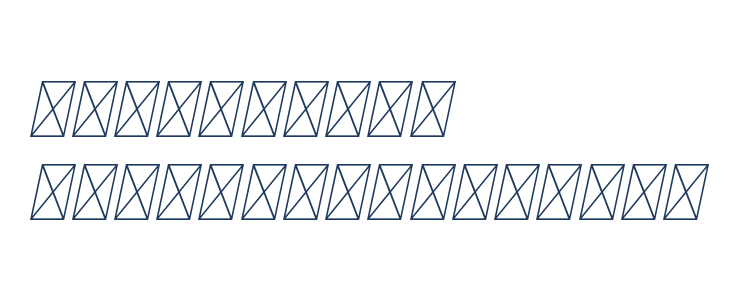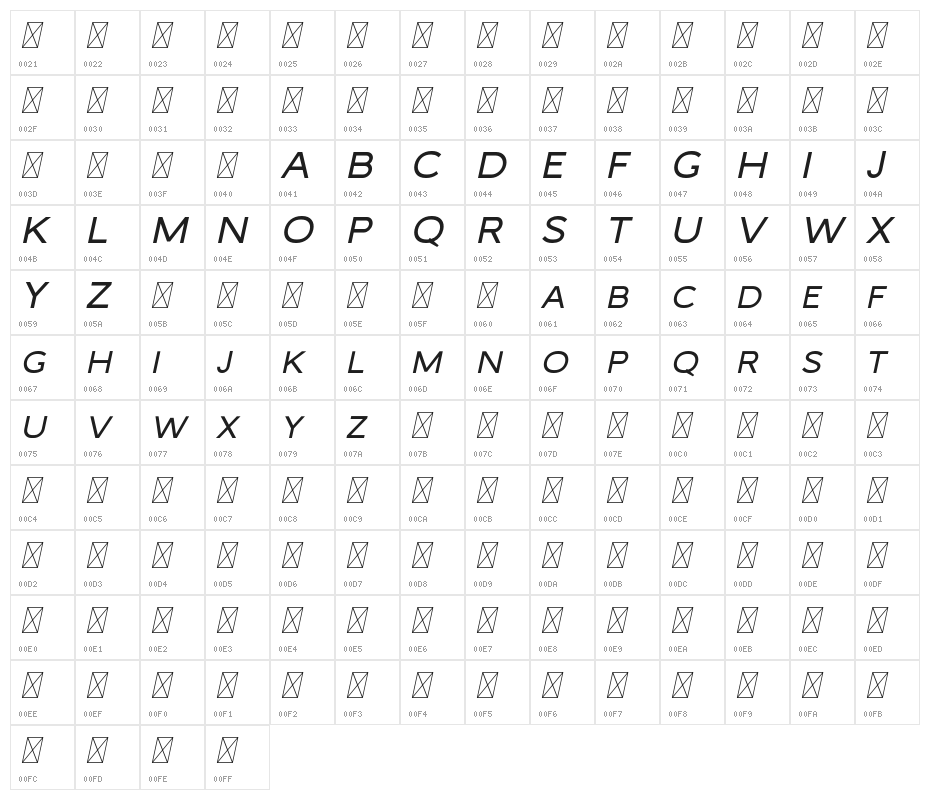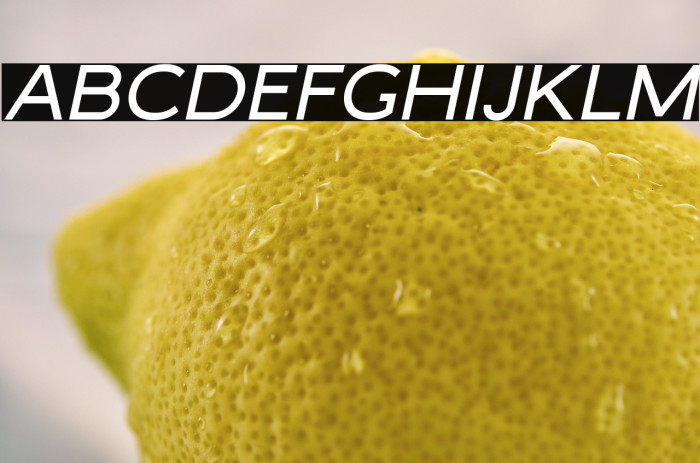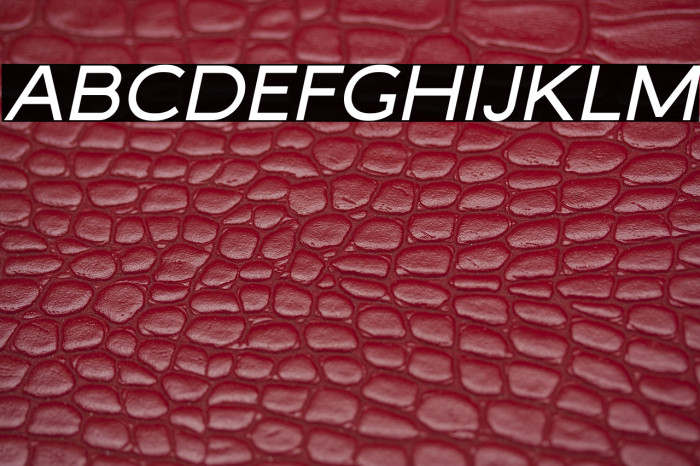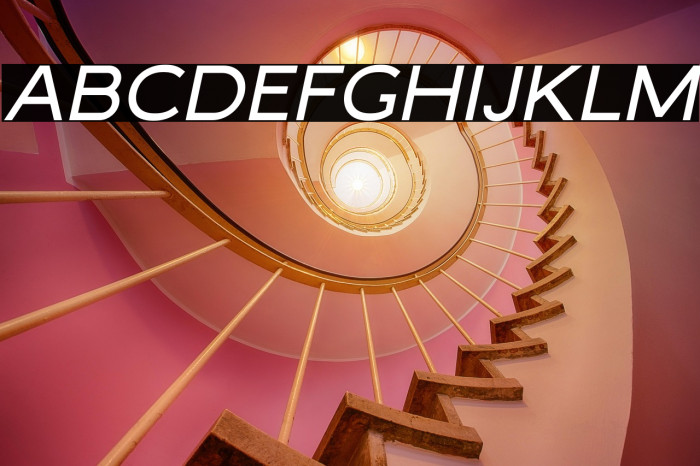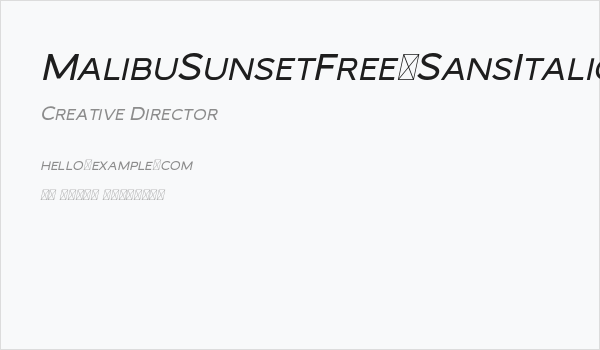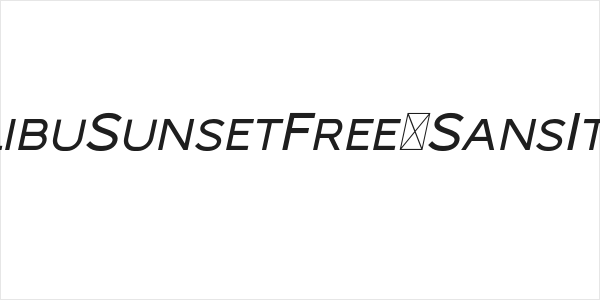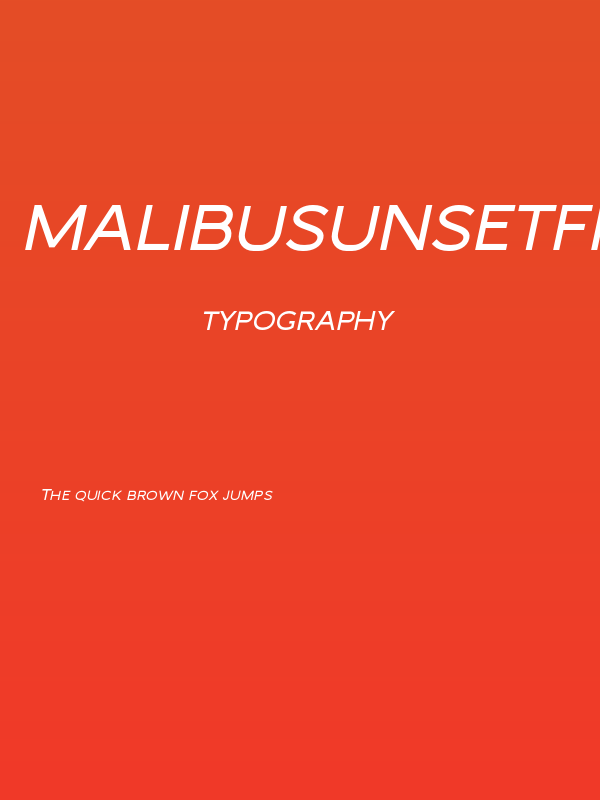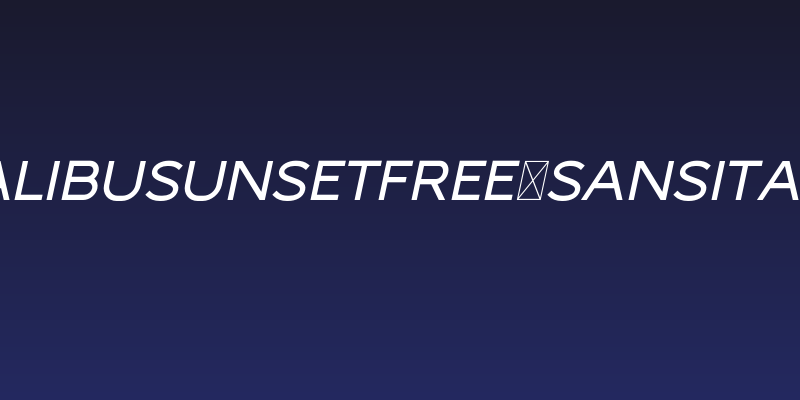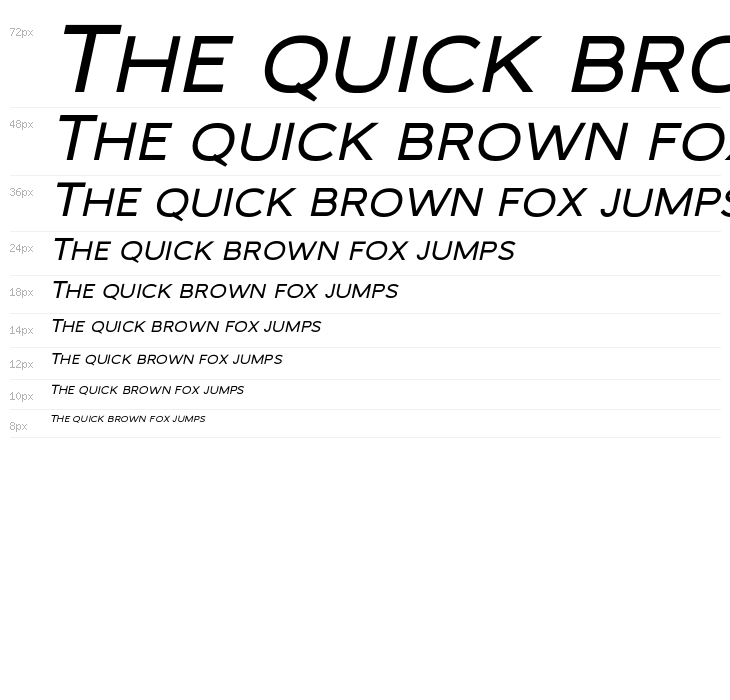
MalibuSunsetFree-SansItalic Font
MalibuSunsetFree-SansItalic Description
This font features a sleek and modern sans-serif design with a distinct italic style. The characters are slightly slanted, giving a dynamic and forward-moving appearance. The strokes are consistent in thickness, contributing to a clean and uniform look. The uppercase and lowercase letters are well-proportioned, with a slight emphasis on the diagonal strokes, enhancing the italic effect. The font's overall aesthetic is contemporary and versatile, suitable for various design applications.
| Proposed Projects | Ideal for branding projects, modern website headers, advertising materials, and editorial design. |